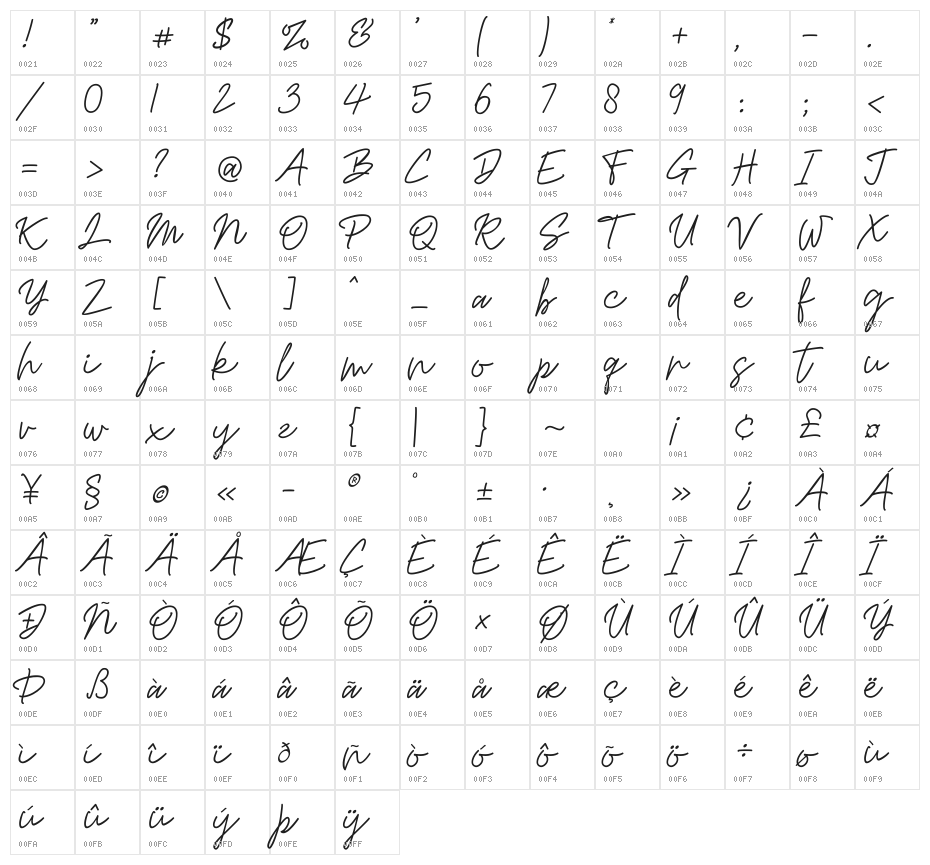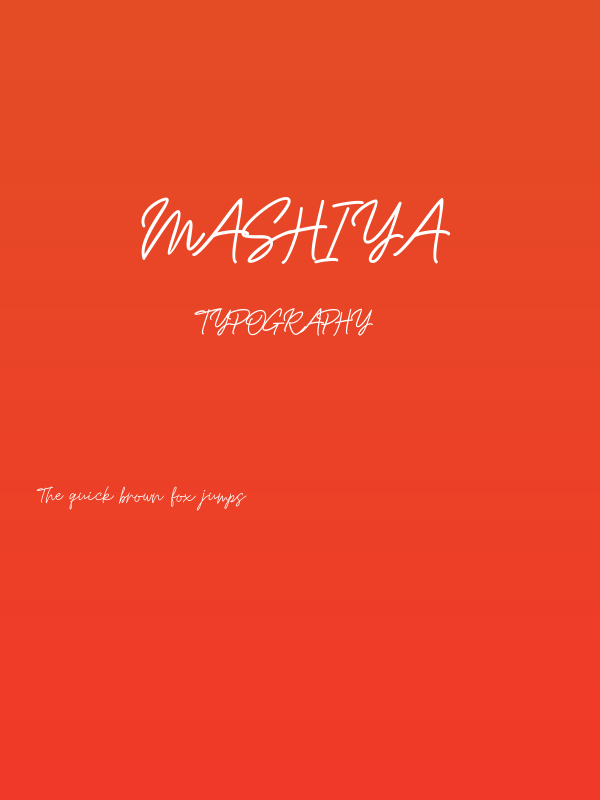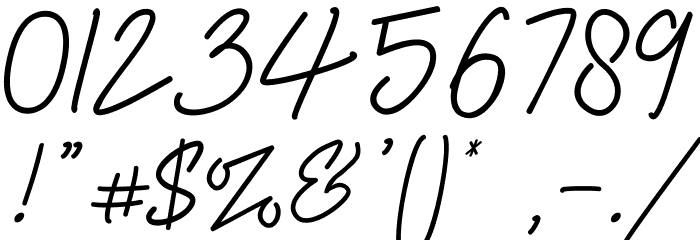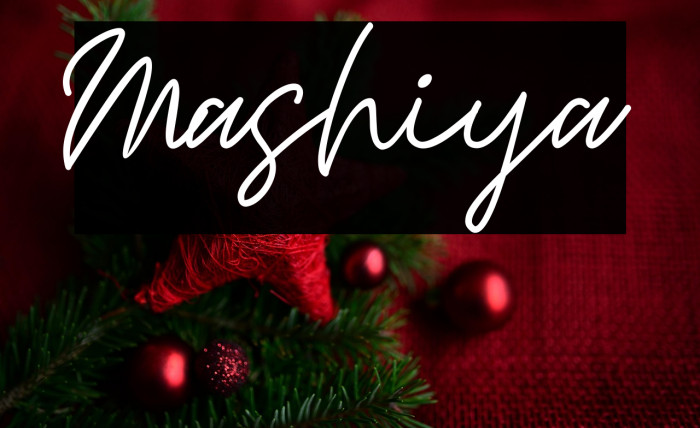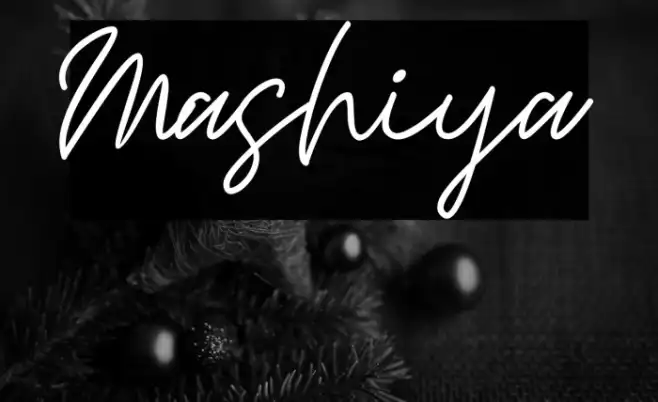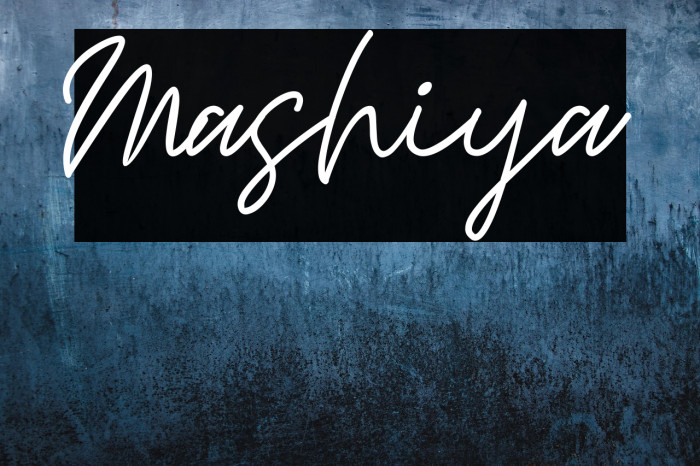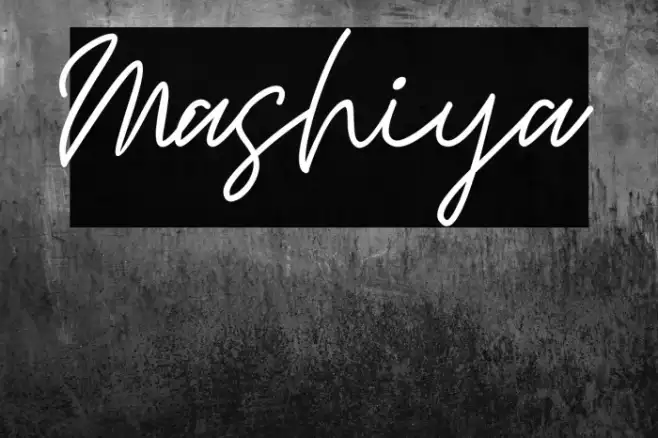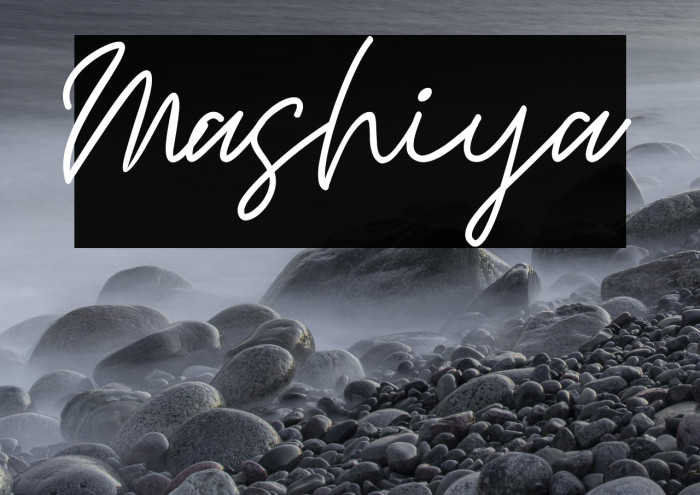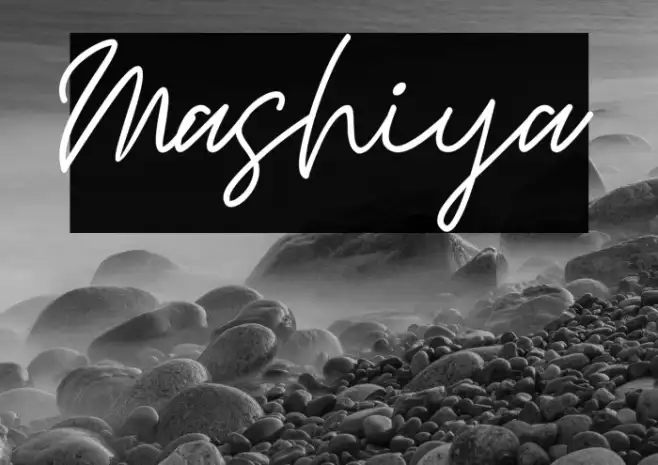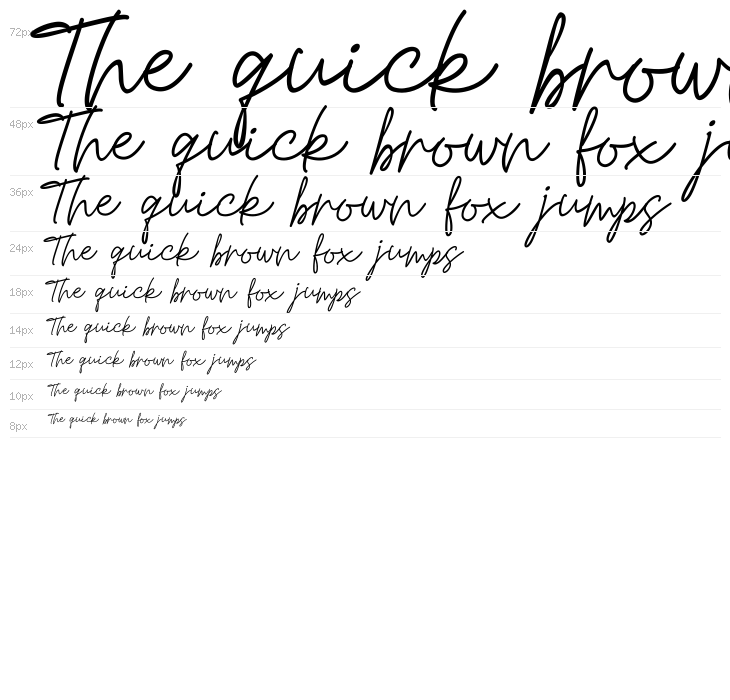
Mashiya Font
Mashiya Description
This font features a flowing, cursive style that mimics natural handwriting with a modern twist. The letters are connected, creating a seamless and elegant appearance. The uppercase letters are slightly larger and more pronounced, while the lowercase letters maintain a consistent flow. The numerals and special characters are designed to match the overall script style, adding to the cohesive look. The strokes are smooth and rounded, giving the font a friendly and approachable feel. This font is versatile and can be used in various design projects that require a personal touch.
| Use Case | Logos, Invitations, Social Media |
| Proposed Projects | Ideal for wedding invitations, greeting cards, personal branding, and social media graphics. |